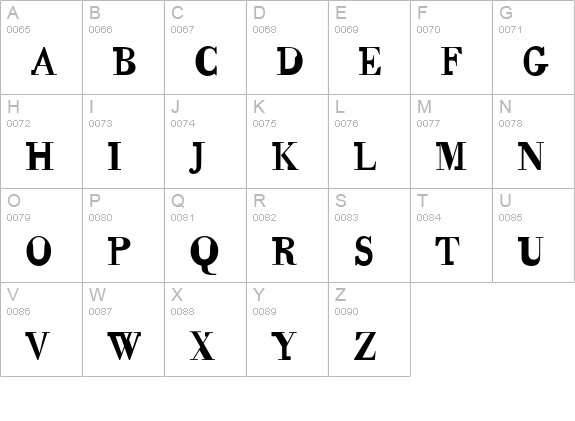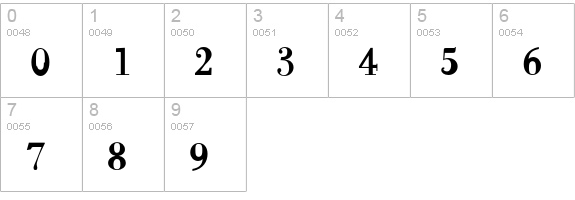
CanadianPhotographer font is a beautifully designed typeface that exudes elegance and sophistication. With its clean lines and modern aesthetic, this font is perfect for adding a touch of professionalism to any project. Whether you're working on a website, a brochure, or a logo, CanadianPhotographer font will surely make a lasting impression. The best part? CanadianPhotographer font is completely free to download at FontsMarket.com. This means you can easily access this stunning font without having to spend a dime. So why wait? Download CanadianPhotographer font today and elevate your designs to the next level.